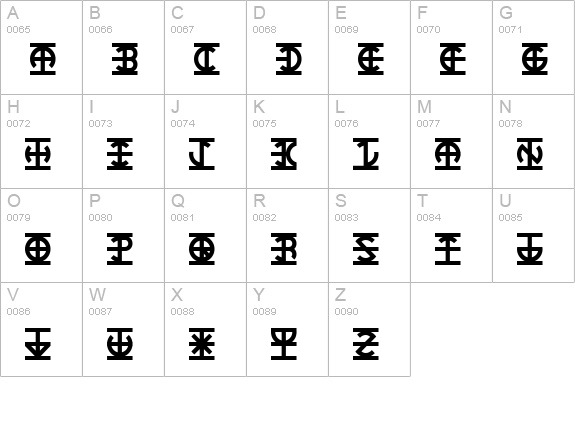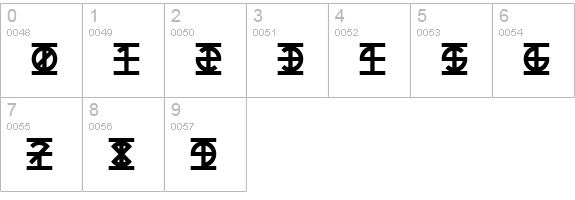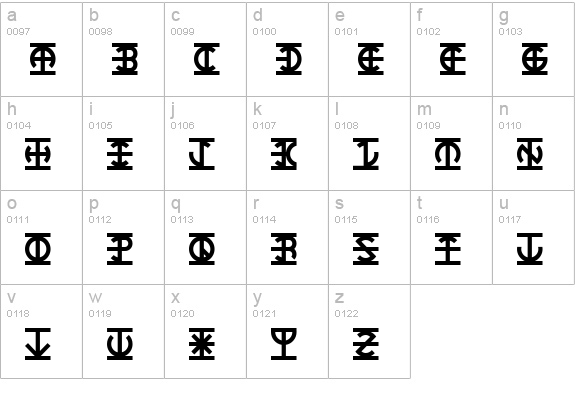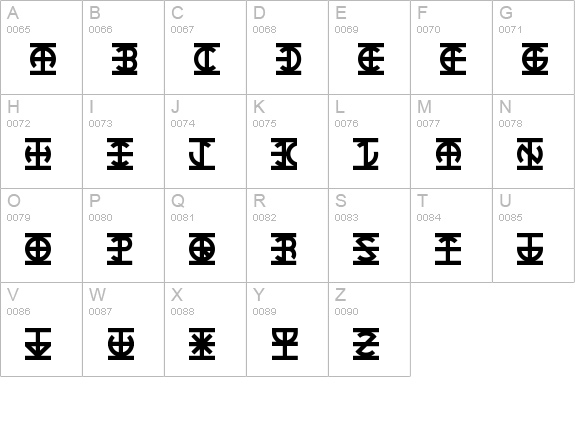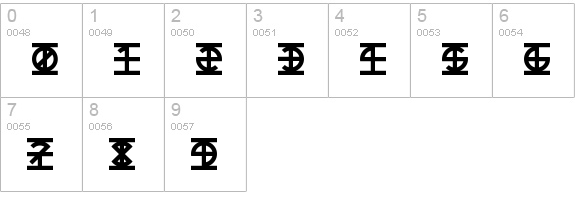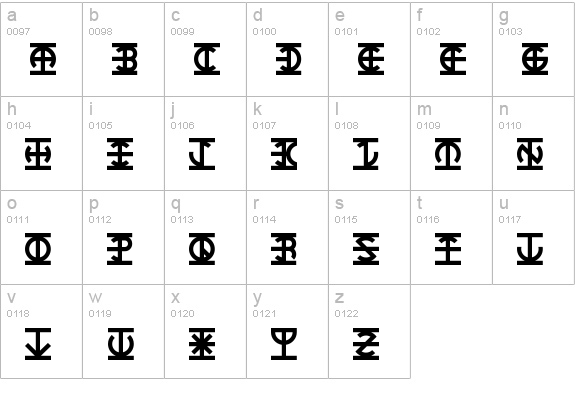
Lantern Font Details
Introducing Lantern Font, a mesmerizing and versatile typeface that will illuminate your designs with its unique charm. This font is not only eye-catching but also free to download, making it a perfect choice for designers on a budget. With its elegant and modern style, Lantern Font is suitable for a wide range of projects, from branding and logo designs to invitations, posters, and more. Its clean lines and subtle curves add a touch of sophistication to any design, while its legibility ensures readability across different sizes and mediums. Whether you're working on a personal project or a professional endeavor, Lantern Font will effortlessly elevate your work to the next level. Don't miss out on this amazing opportunity to enhance your designs with this remarkable font - it's freely available to download at FontsMarket.com, your go-to source for high-quality fonts. Grab your copy of Lantern Font today and let your creativity shine!